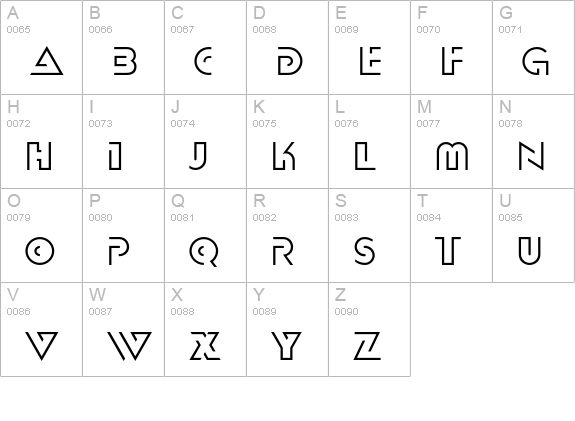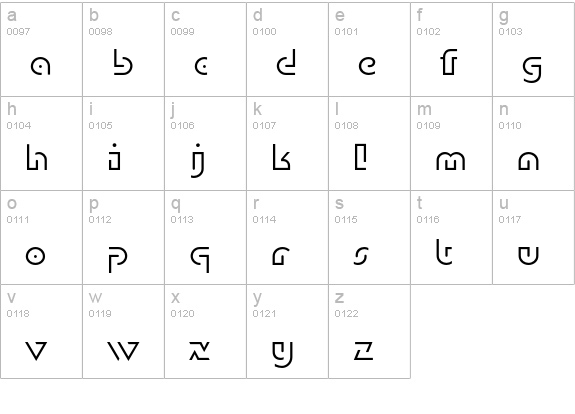
PT Dublon Light Cyrillic is a refined, elegant variant in the PT typeface family \xE2\x80\x94 well suited to elegant body text, refined sub-headings, and luxury branding.
The PT Dublon Light Cyrillic font is a modern and elegant typeface that exudes sophistication and style. Its sleek and clean design makes it perfect for a wide range of projects, from branding and advertising to editorial and web design. The font features a unique blend of classic and contemporary elements, giving it a timeless appeal that will never go out of style. Best of all, the PT Dublon Light Cyrillic font is available for free download at FontsMarket.com. This means you can easily access and use this stunning font in your projects without any cost. Take advantage of this opportunity to enhance your designs with a premium quality typeface that is sure to make a lasting impression. Download the PT Dublon Light Cyrillic font today and elevate your creative projects to new heights.